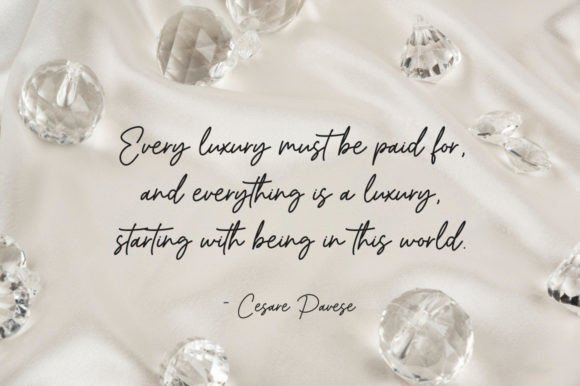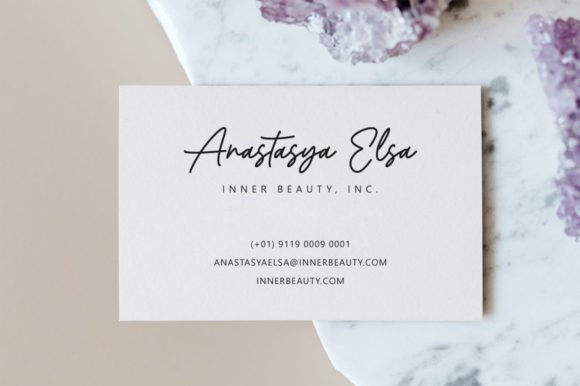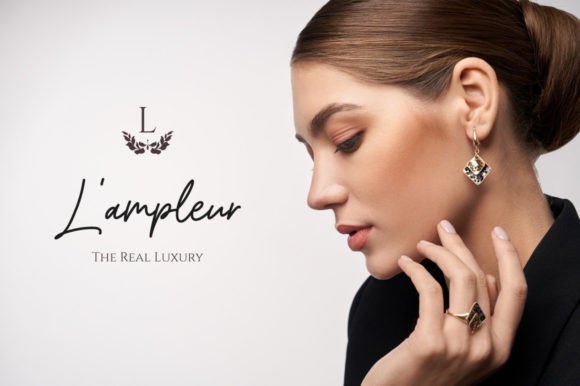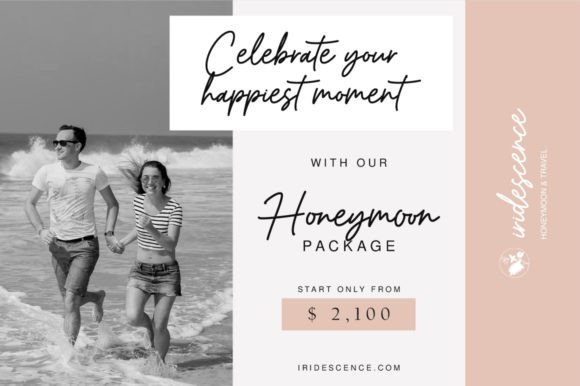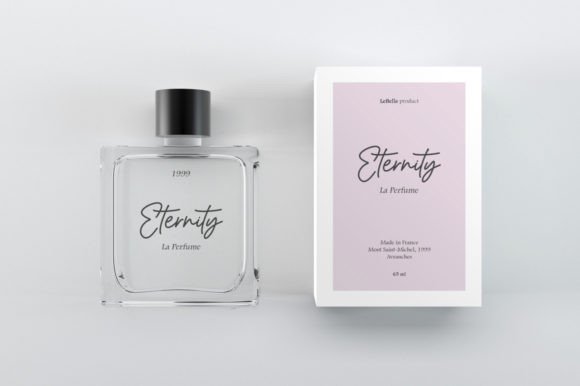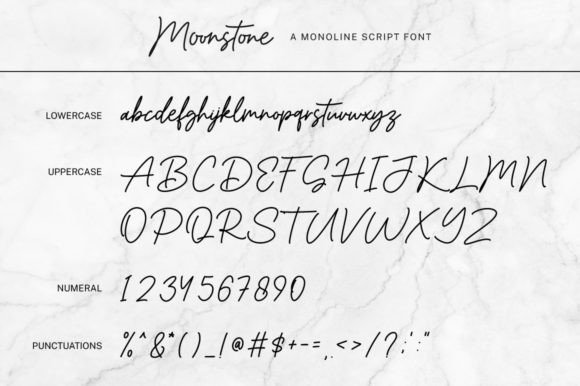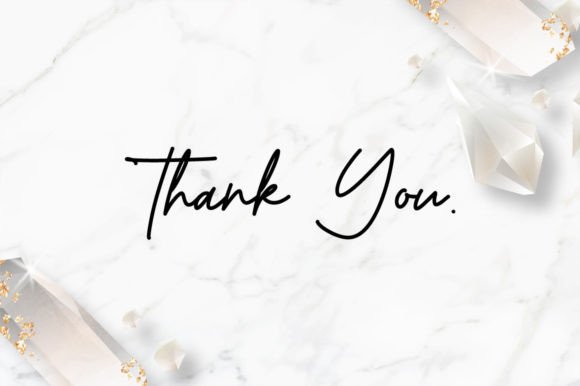
Moonstone Font
About Moonstone Font
“Moonstone” is a beautiful, well-balanced, and graceful script font known for its smooth curves and elegance. This font is an excellent choice for fashion branding and editorial designs, as it adds a touch of sophistication and style to your creative projects.
The charm of “Moonstone” lies in its graceful script. Its smooth and well-designed characters create a visually captivating and refined experience, making it an ideal choice for projects that aim to convey a sense of beauty and elegance.
One of the standout qualities of “Moonstone” is its versatility. Whether you’re using it for fashion branding to convey a sense of style and sophistication, or incorporating it into editorial designs to enhance the visual appeal of your content, this font seamlessly integrates into your creative vision.
This font’s dedication to providing a beautiful and graceful look to your projects sets it apart. Whether you’re working on personal or professional endeavors, “Moonstone” brings a sense of refinement and elegance to your work that resonates with a diverse audience.
In summary, “Moonstone” is more than just a font; it’s an elegant and versatile creative tool that can elevate your projects with its beauty and graceful script. Whether you’re a professional designer seeking a font that adds sophistication to your designs or an enthusiast passionate about fashion and editorial creativity, “Moonstone” is here to make your projects shine with style and elegance. Embrace the beauty of “Moonstone,” and watch your creativity flourish with grace and refinement.